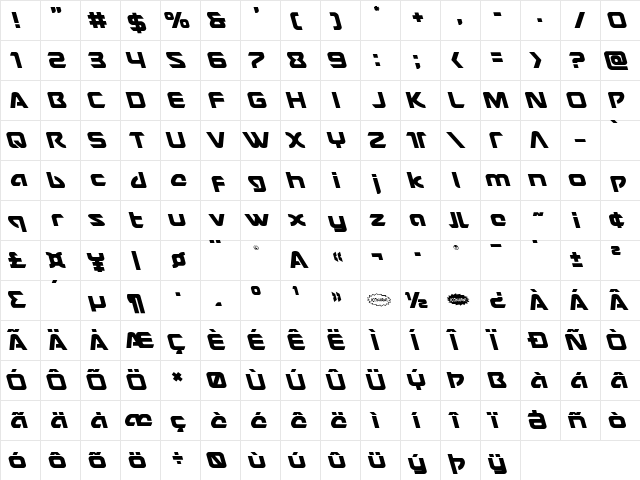
USAngel Leftalic Italic Font Preview
USAngel Leftalic Italic
USAngel Leftalic Italic Font Details
Design Context for USAngel Leftalic Typeface
USAngel Leftalic offers clean, dependable letterforms without strong stylistic allegiance, making it a practical choice for designers who need flexibility. The dynamic lean of this cut emphasises speed and emphasis in any layout.
Pro Tip: Use USAngel Leftalic for emphasis, pull quotes, and subheadings where its slanted energy can add rhythm to the layout.